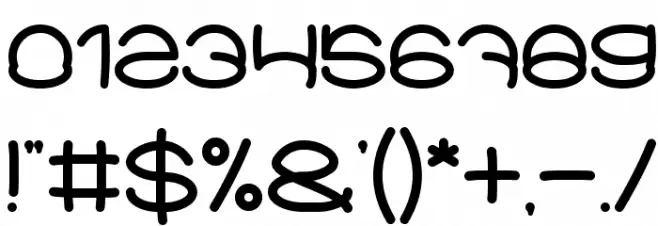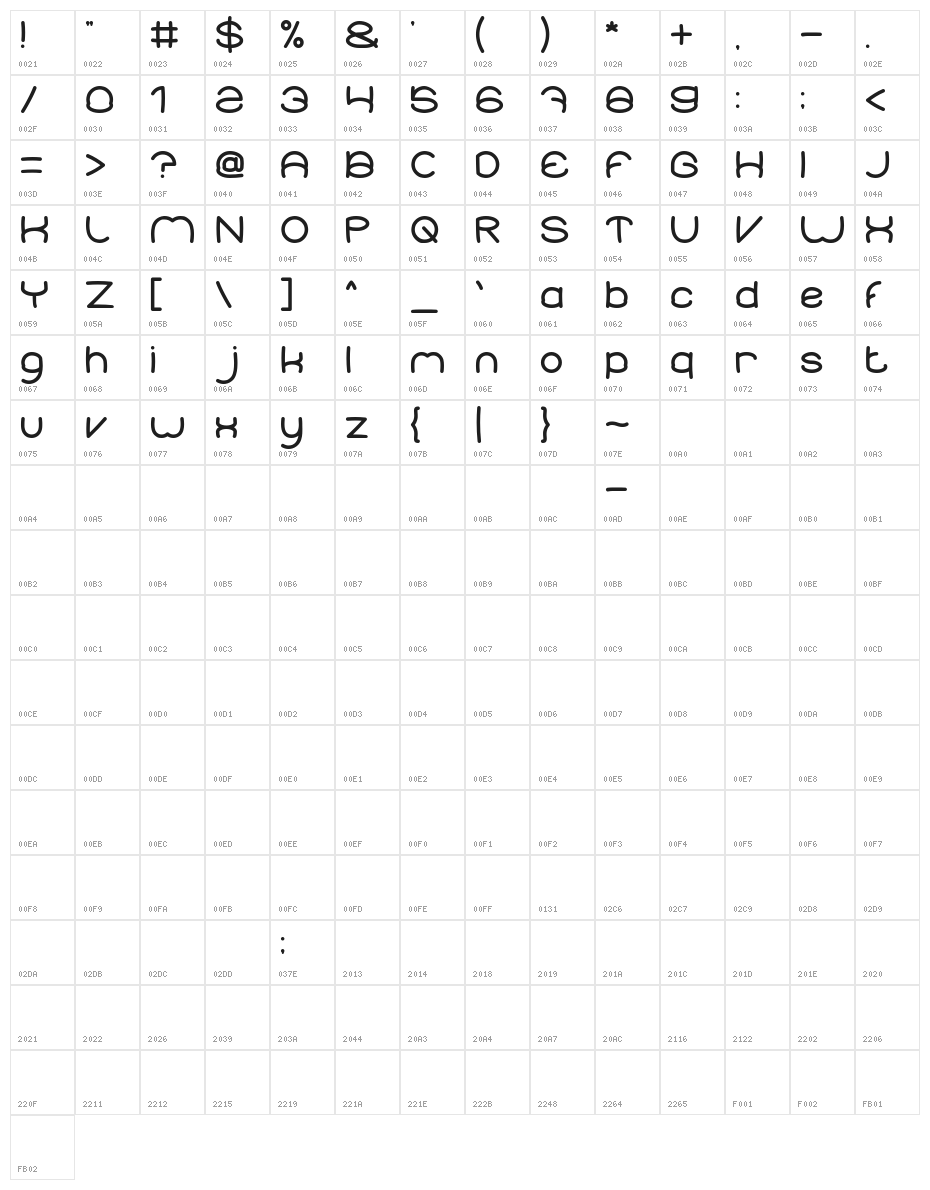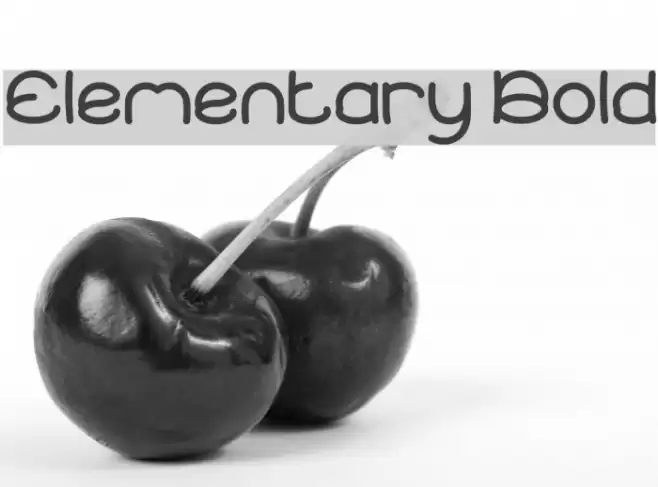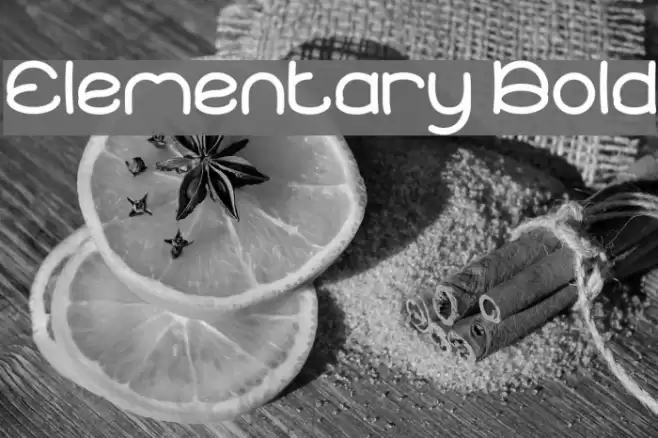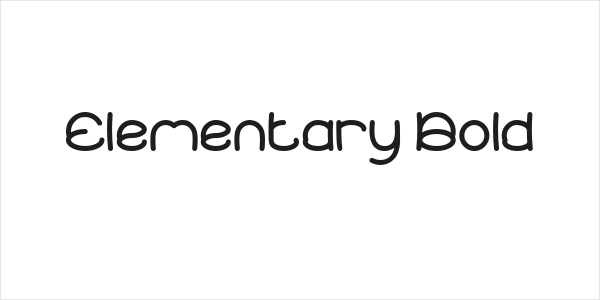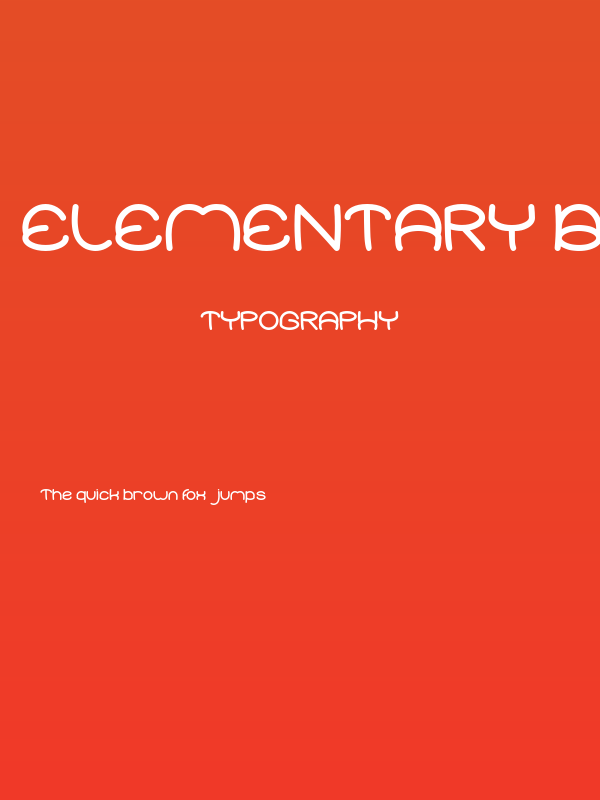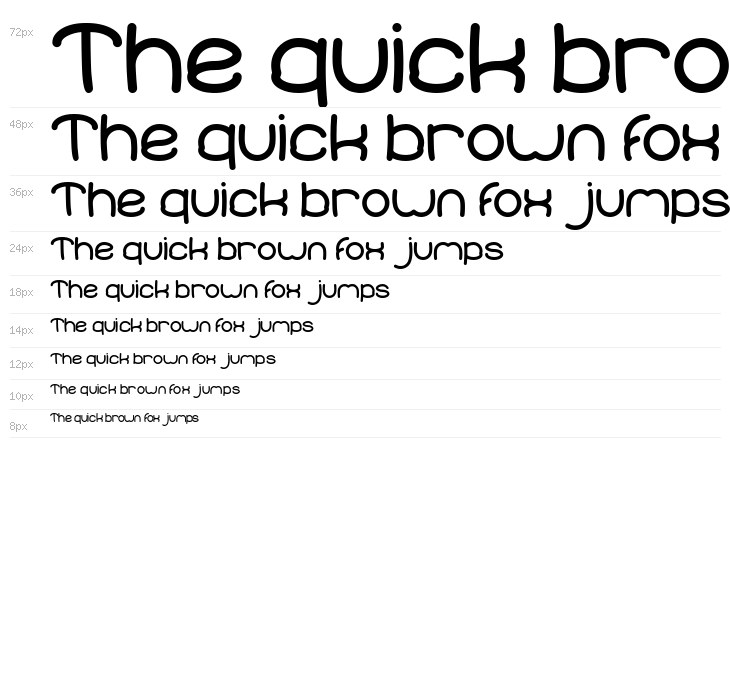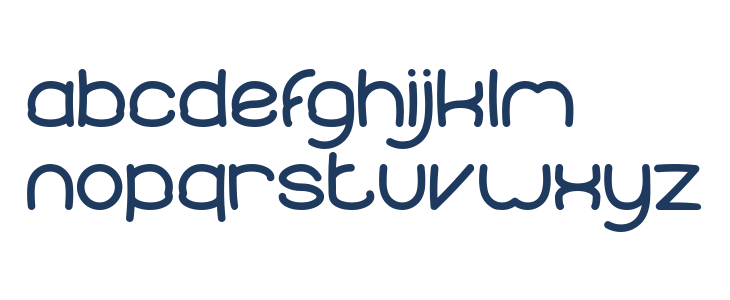
Elementary Bold Font
Elementary Bold Description
This font features a playful and rounded design, characterized by its bold and smooth curves. The letters are evenly spaced, with a consistent thickness that gives it a cohesive and friendly appearance. The uppercase and lowercase letters maintain a uniform style, making it easy to read while still retaining a unique charm. The numbers and special characters are designed to match the overall aesthetic, ensuring versatility across different uses. Its boldness makes it stand out, yet the rounded edges soften its impact, making it suitable for both casual and professional settings.
Overall StylePlayful
Use CaseHeadlines, Logos, Creative projects
Proposed ProjectsIdeal for children's books, educational materials, playful branding, and creative projects.